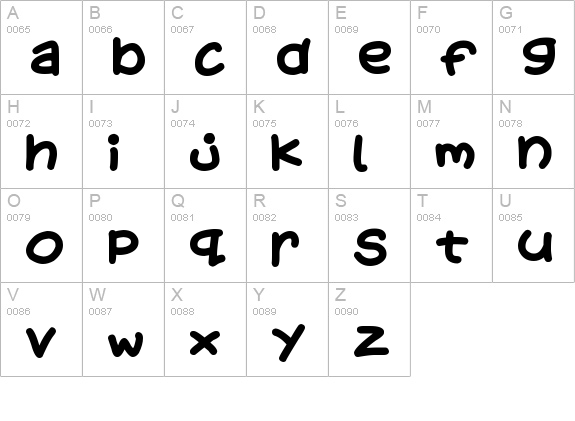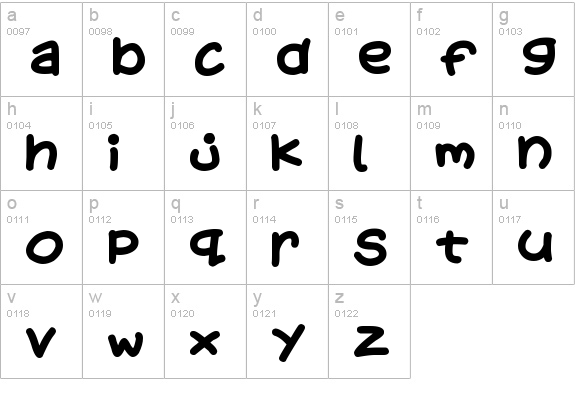
Kids Stuff is a free for personal use font in the Script > Handwritten category, designed by Darrell Flood. It has been downloaded 88 times and is available for Windows, Mac and Linux.
Kids Stuff font is a whimsical and playful typeface that is perfect for all your children-themed projects. With its fun and colorful design, this font is sure to bring a smile to anyone's face. Whether you're creating birthday invitations, school posters, or crafting DIY projects with your little ones, Kids Stuff font will add a touch of charm and creativity to your designs.